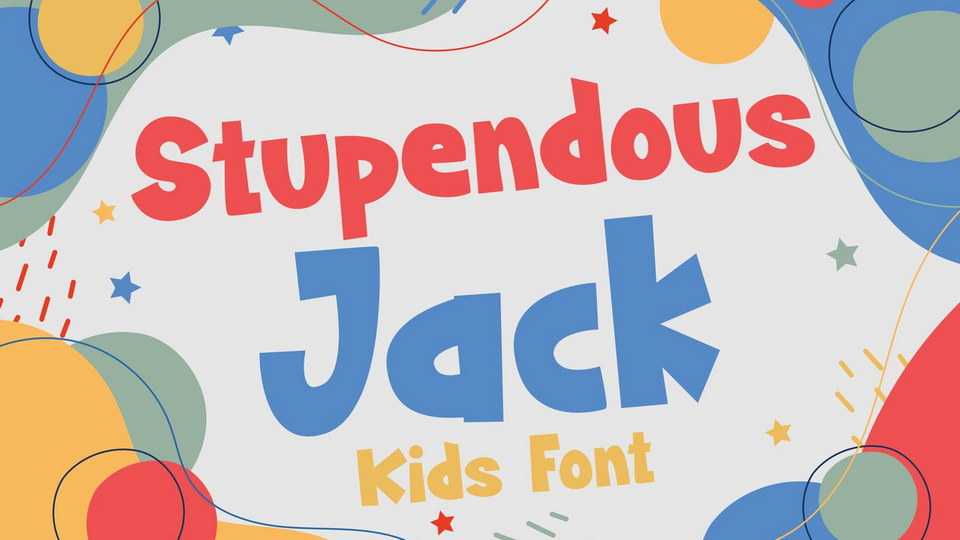
Download Stupendous Jack font, a fun kids typeface. Having a bold shape with a funky baseline and funny vibe will make Stupendous Jack emphasize every word you put on the screen.